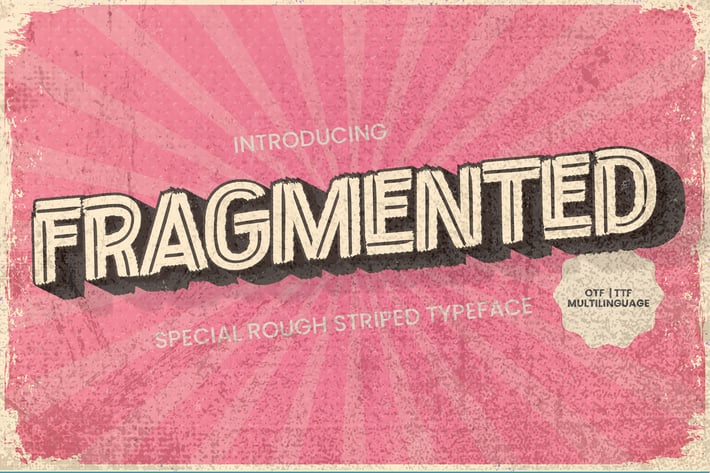
Fragmented - Special Rough Striped Typeface
Gassstype
Introducing Fragmented is a Special Rough Striped Typeface that is written casually and quickly. Letters are made with brushes on Procreate. Then crafted carefully drawn into vector format.
That is why Fragmented has charming, authentic and relaxed characteristic more natural look to your text with a more natural look to your text. design more interesting. Fragmented is perfect for homeware designs,branding projects, Logo design, Quotes product packaging